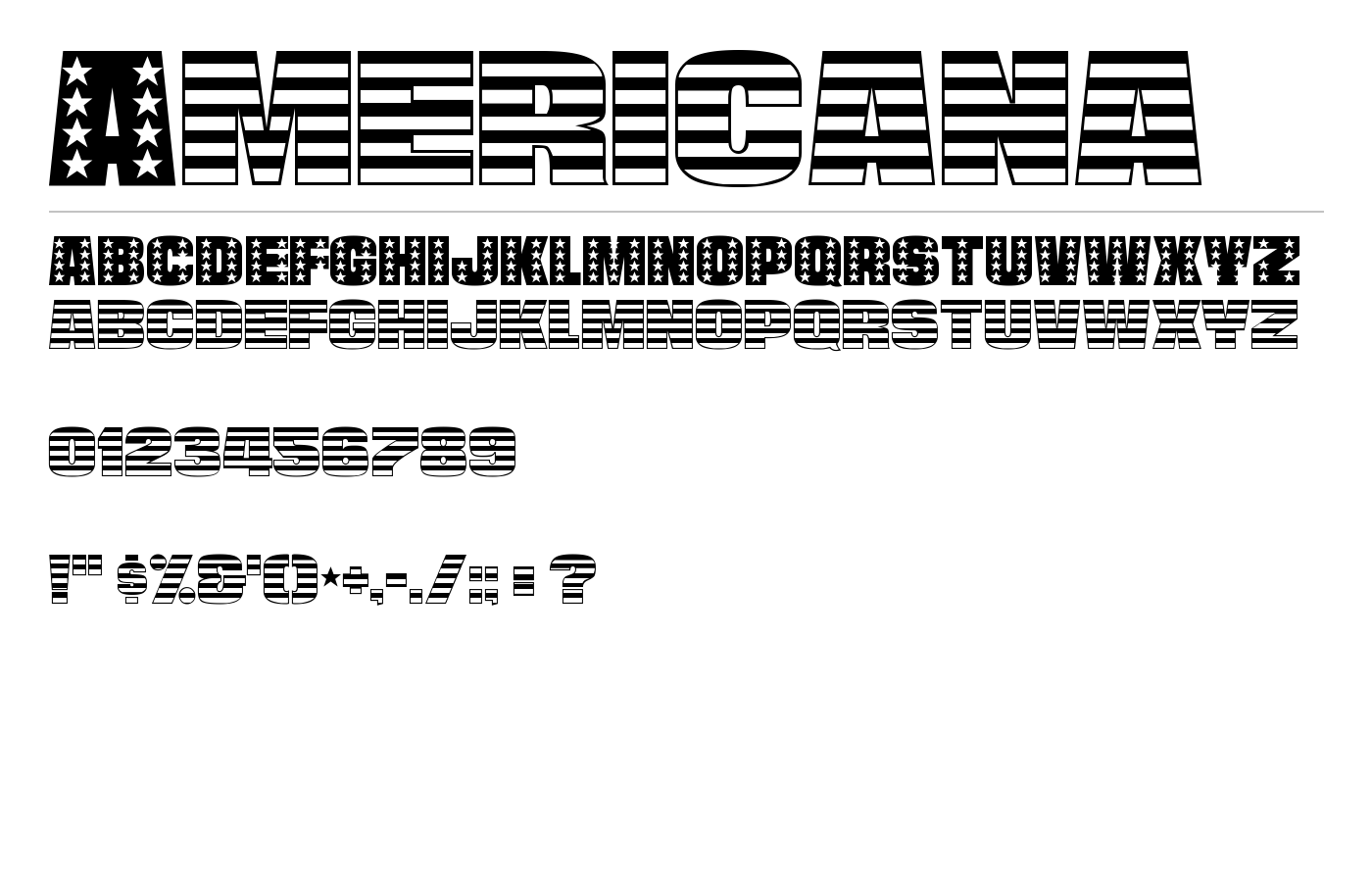
Americana Font is a bold, decorative sans serif typeface that features strong geometric shapes filled with patriotic star and stripe patterns, evoking a vibrant Americana spirit. Its heavy weight and condensed letterforms make it perfect for eye-catching headlines, logos, or posters that need a playful yet impactful style with a distinctly American flair. This font works best in display settings where its unique design can shine and communicate themes of pride, celebration, and tradition.
Americana Font
About Americana Font